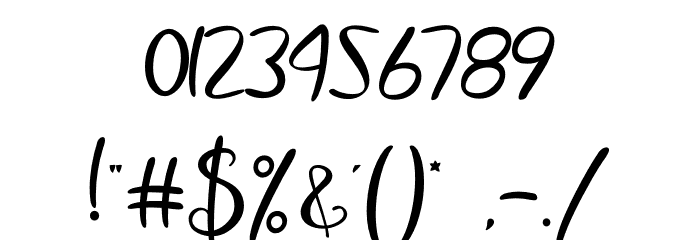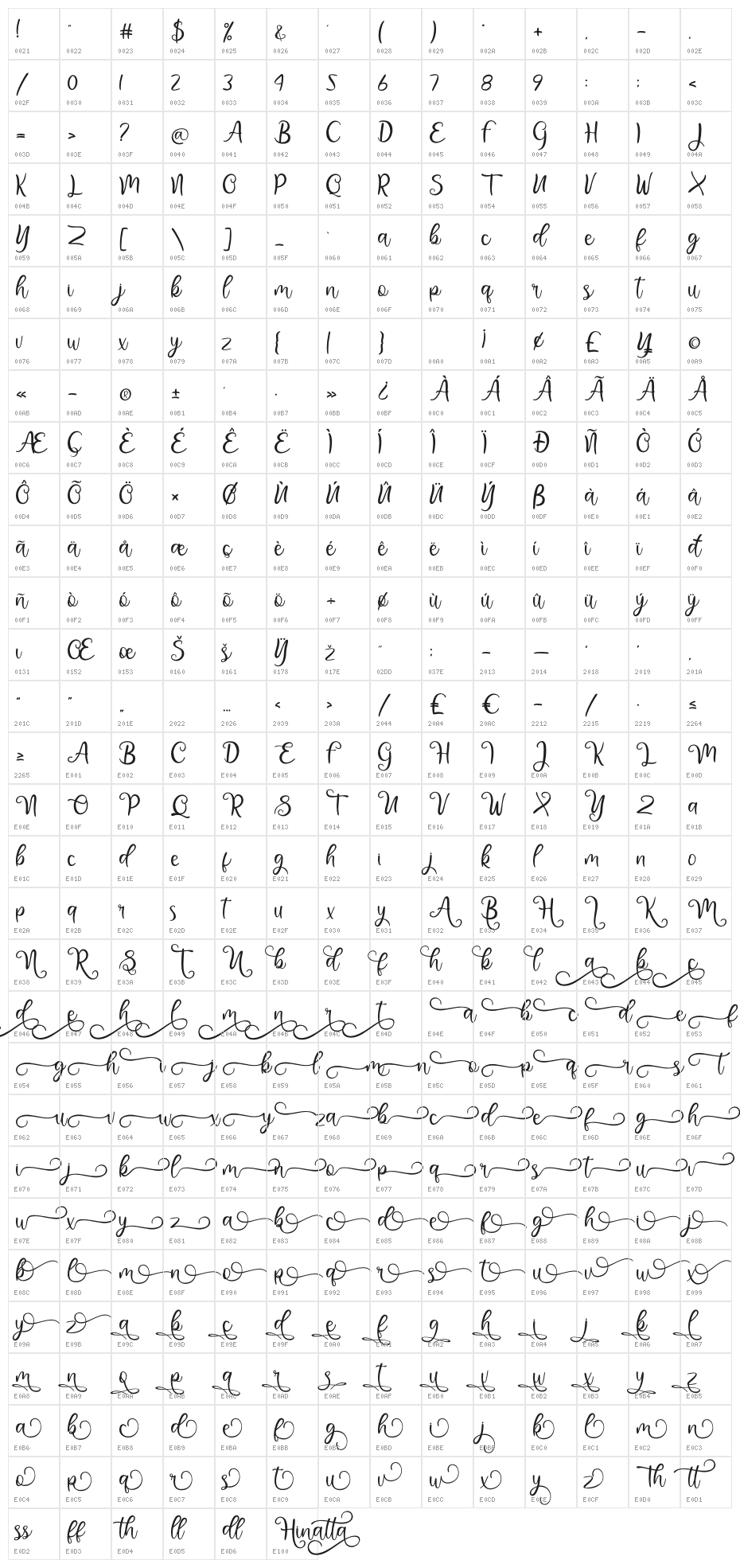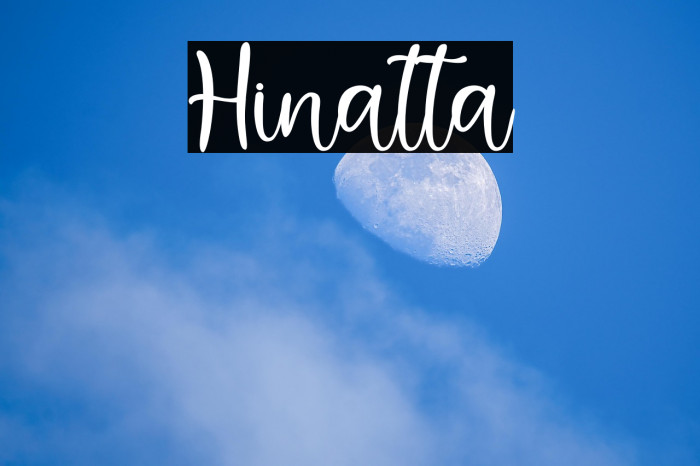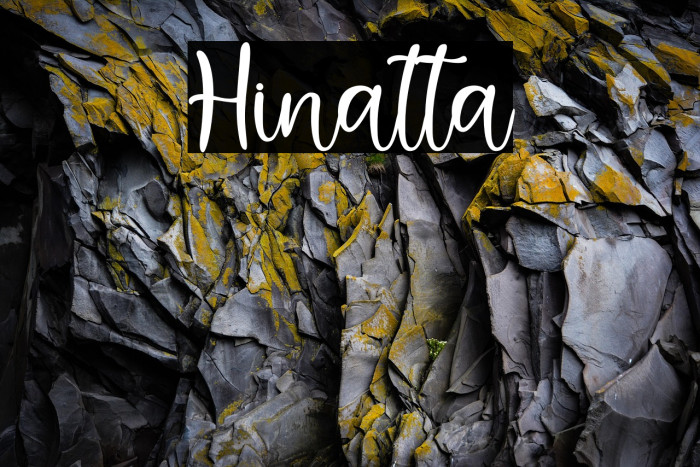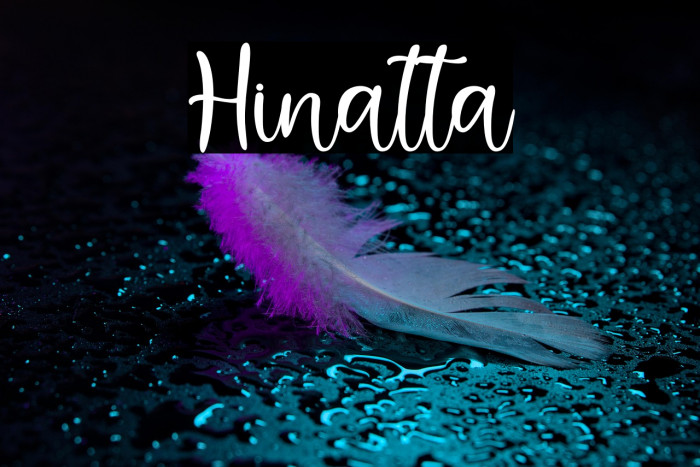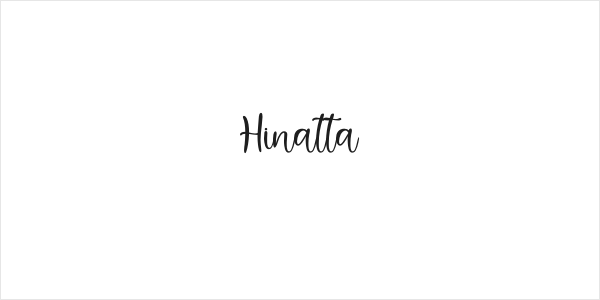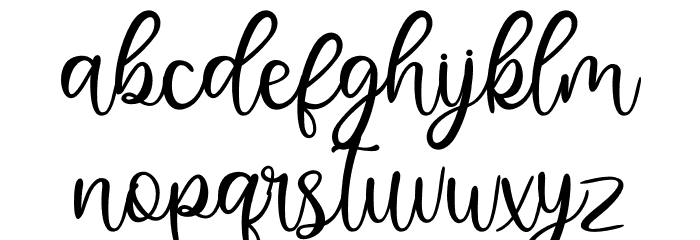
Hinatta Font
This font features a lively and flowing script style, characterized by its smooth, cursive strokes and playful loops. The uppercase letters are bold and expressive, with a slight slant that adds a dynamic feel. The lowercase letters maintain a consistent flow, enhancing readability while preserving the font's whimsical nature. Numbers and special characters are designed to match the overall aesthetic, ensuring a cohesive look across all text elements. The font's design evokes a sense of elegance and creativity, making it suitable for a variety of design projects.
| Use Case | Logos, Invitations, Social Media |
| Proposed Projects | Ideal for wedding invitations, greeting cards, branding, and social media graphics. |